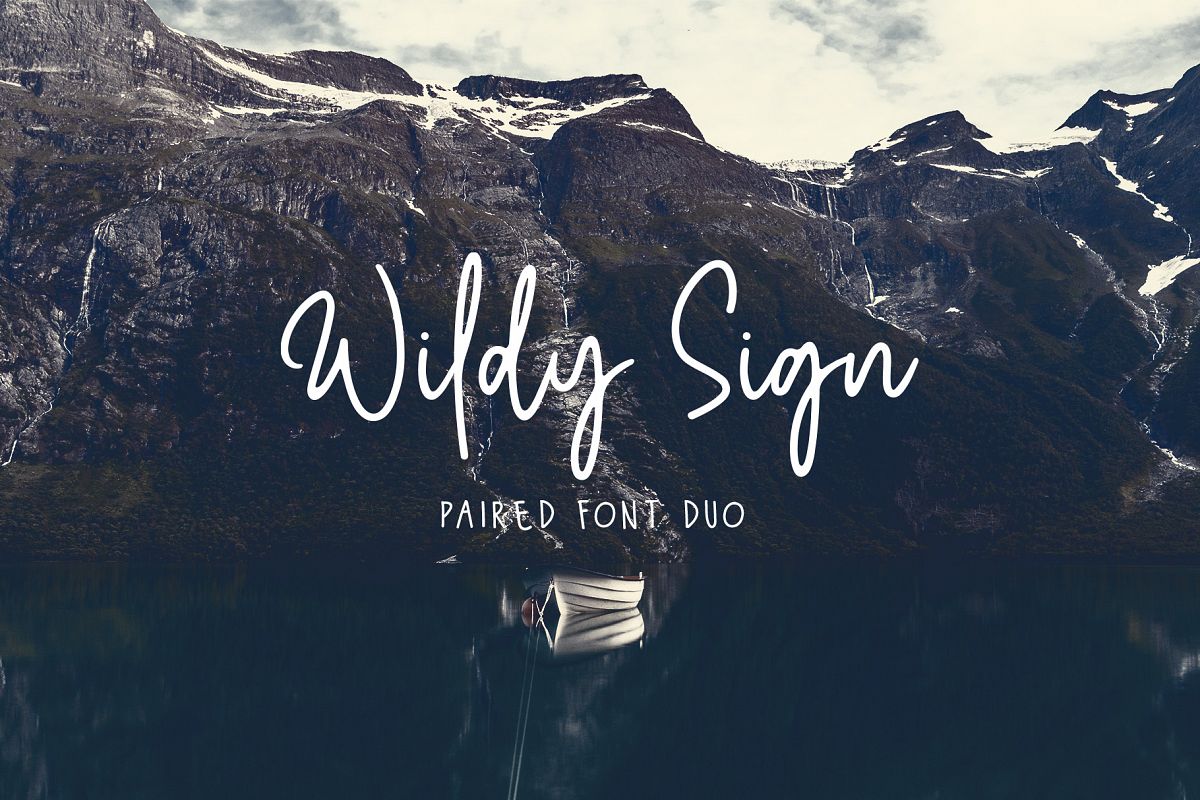
Wildy Sign - Paired Font Duo
Hello friend, let me introduce my newest script monoline font Wildy Sign - Font Duo
Wildy Sign is a handdrawn monoline signature font, they have a fashionable, fun and chilled character. Wildy Sign come with two font style, script and sans. Pairing the script and sans font to create fun, stylish and eye catching typography. Suitable and applicable to create social media feed, christmas card, branding, logos, product packaging, invitation, qoutes, t-shirt, label poster etc.
• Punctuation and Number
• Multilingual Language
• Alternate Character & Ligature ( Wildy Sign )